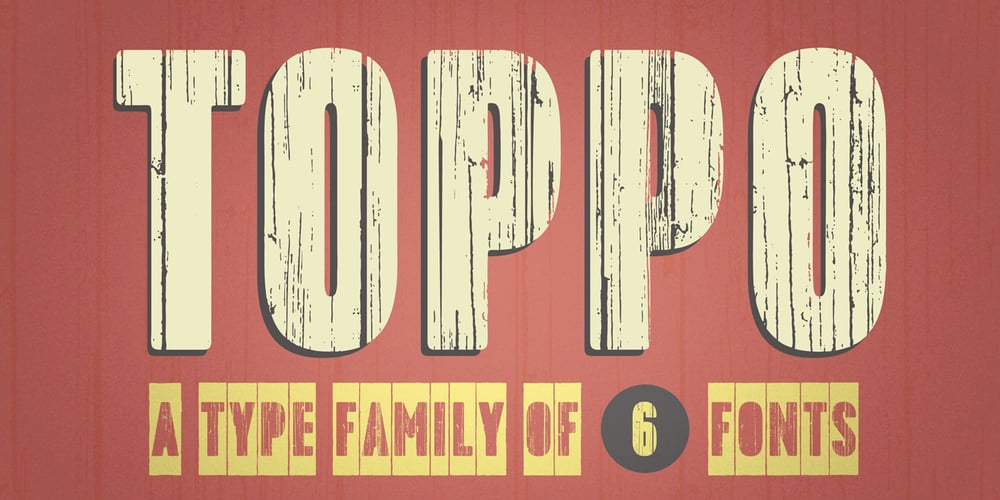
Toppo Font Family was designed by published by Typoforge Studio. Toppo contains 6 styles and family package options. To design the font Toppo I was inspired by a You And Me Monthly published by National Magazines Publisher RSW Prasa that appeared from Mai 1960 till December 1973 in Poland. This family contains 6 different styles. In the Toppo family, every variety contains 3 alternative characters with automatic replacement.